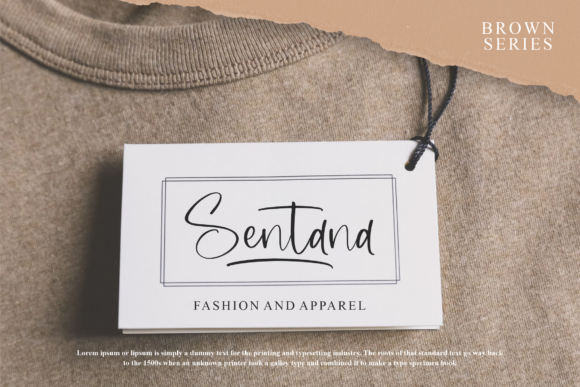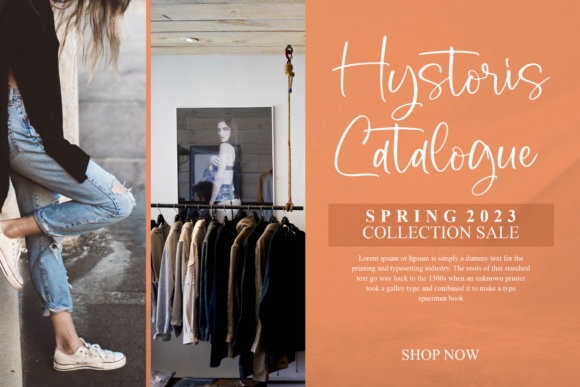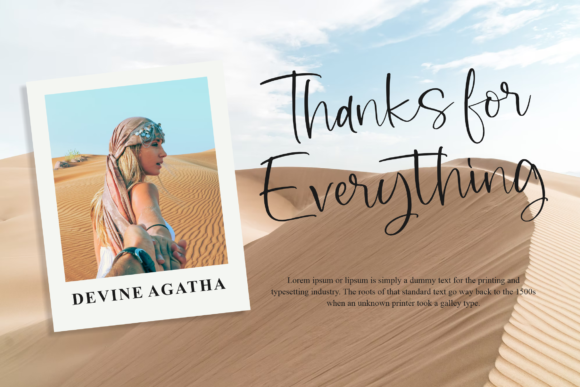
Introduction to Shelpy Font
Shelpy is a free-flowing script font created for packaging products, invitation cards, flyers, mockups, event posters, and anything else that requires high-quality vibes.
It has a beautiful and balanced character, that fits well with the large design pool .
Key Features of Shelpy Font
Why Choose Shelpy Font?